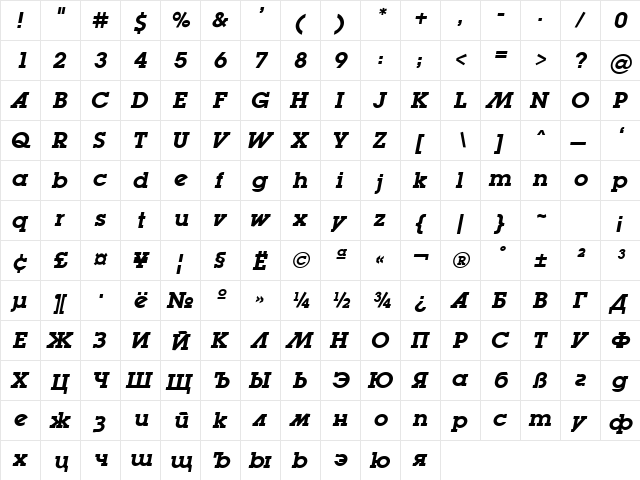
LugaBookAd SemiBold Oblique
Design Context for LugaBookAd Typeface
LugaBookAd offers clean, dependable letterforms without strong stylistic allegiance, making it a practical choice for designers who need flexibility. The slanted form adds forward momentum and visual energy. The heavy weight commands attention and anchors typographic hierarchies.